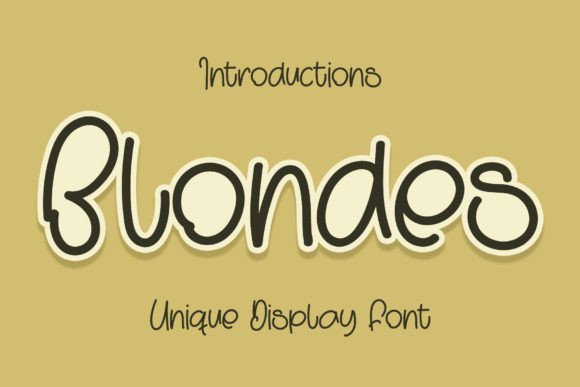
Have you ever found yourself stuck in a creative rut, struggling to bring a concept to life? You know the feeling – your ideas are floating around in your head, but they just won’t seem to materialize on paper. It’s in moments like these that the right font can be a game-changer. For me, it was when I stumbled upon Blondes Font, a stunning handwritten script that instantly added a touch of whimsy to my designs.
Blondes Font is the perfect addition to any designer’s library, especially for those working on magazine layouts, craft projects, or any other design that requires a touch of elegance and sophistication. With its beautiful, flowing lines, Blondes Font is sure to elevate your designs and leave a lasting impression. Whether you’re a seasoned designer or just starting out, adding Blondes Font to your toolkit is a valuable investment that will pay off in the long run.
Key Features of Blondes Font
- Size: The font family includes 6 weights, ranging from Thin (100) to Black (900), providing a versatile range of styles for various design applications.
- Unique Characteristics: The font features a distinctive, hand-drawn feel with subtle imperfections, giving it a warm and inviting aesthetic.
- Language Support: Blondes Font includes support for over 200 languages, making it an ideal choice for multilingual designs and international applications.
- Scalability: The font is designed to be highly scalable, allowing it to maintain its quality and legibility at various font sizes and resolutions.
Blondes Font Review
Overall, Blondes Font is a fun, energetic script font that’s perfect for adding a touch of whimsy to your designs. ✨ The rounded edges and flowing connections give it a friendly, approachable feel that’s hard to resist.
- ✨ The font is highly legible, even at smaller sizes.
- ✨ The font is incredibly versatile and can be used for a wide range of design projects, from logos to signage to packaging.
- ✨ The font comes in a range of weights, from light to bold, giving you plenty of options for customizing your design.
- ⚠️ The font can feel a bit too playful for more formal or corporate designs.
- ⚠️ The font may not be the best choice for body text, as it can be a bit difficult to read at length.
Overall, Blondes Font is a great choice for designers looking to add some personality to their projects. While it may not be the best fit for every design, it’s definitely worth considering for the right project.
Blondes Font is perfect for:
- Creating eye-catching headings and titles.
- Adding a unique touch to your typography.
- Designing engaging presentations and documents.
Alternatives to “Blondes Font” for Designers
Ostrich Sans is a modern sans-serif font that offers a clean and minimalist aesthetic. It is ideal for use in digital products, such as apps and websites, where legibility and readability are crucial. Compared to Blondes Font, Ostrich Sans has a more geometric feel and is better suited for contemporary designs.
Montserrat is a geometric sans-serif font that originated from a sign in a Buenos Aires neighborhood. It is perfect for use in urban and industrial designs, where a strong and modern feel is desired. Unlike Blondes Font, Montserrat has a more angular and condensed feel, making it ideal for headings and titles.
Inter is a modern sans-serif font that is highly legible and versatile. It is designed for use in digital products, such as websites and apps, where a clean and neutral aesthetic is desired. Compared to Blondes Font, Inter has a more rounded feel and is better suited for body text and content-heavy designs.
Avenir is a geometric sans-serif font that is inspired by the futurist movement of the 1920s and 1930s. It is perfect for use in luxury and high-end designs, where a sophisticated and modern feel is desired. Unlike Blondes Font, Avenir has a more elegant and refined feel, making it ideal for corporate identities and premium products.